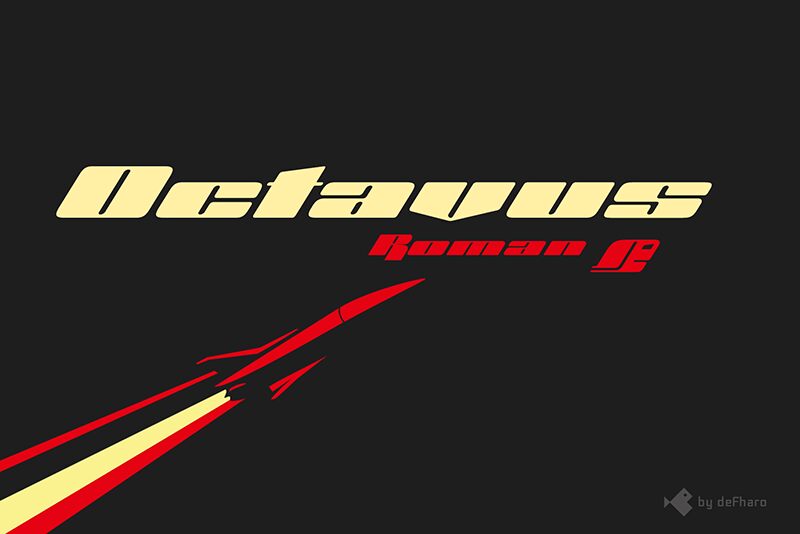
Octavus font
Octavus
Octavus is a retro-futuristic, technological typeface characterized by its wide and slanted design, featuring a 32-degree slant that imparts a distinctive dynamism and bold minimalism.
This robust and bold font family possesses an expanded proportion and a striking black weight, creating a unique personality rooted in bold minimalism. The 32-degree slant lends Octavus a dynamic feel; its aesthetic seamlessly combines elements of the present with visions of the distant future, transporting you to imaginative realms.
The typeface exhibits a thick, modern appearance with a dramatic contrast between its horizontal and vertical stems. Each letter is crafted with a rounded finish and steep slant, establishing an incredibly dynamic and technological visual context imbued with vintage nuances.